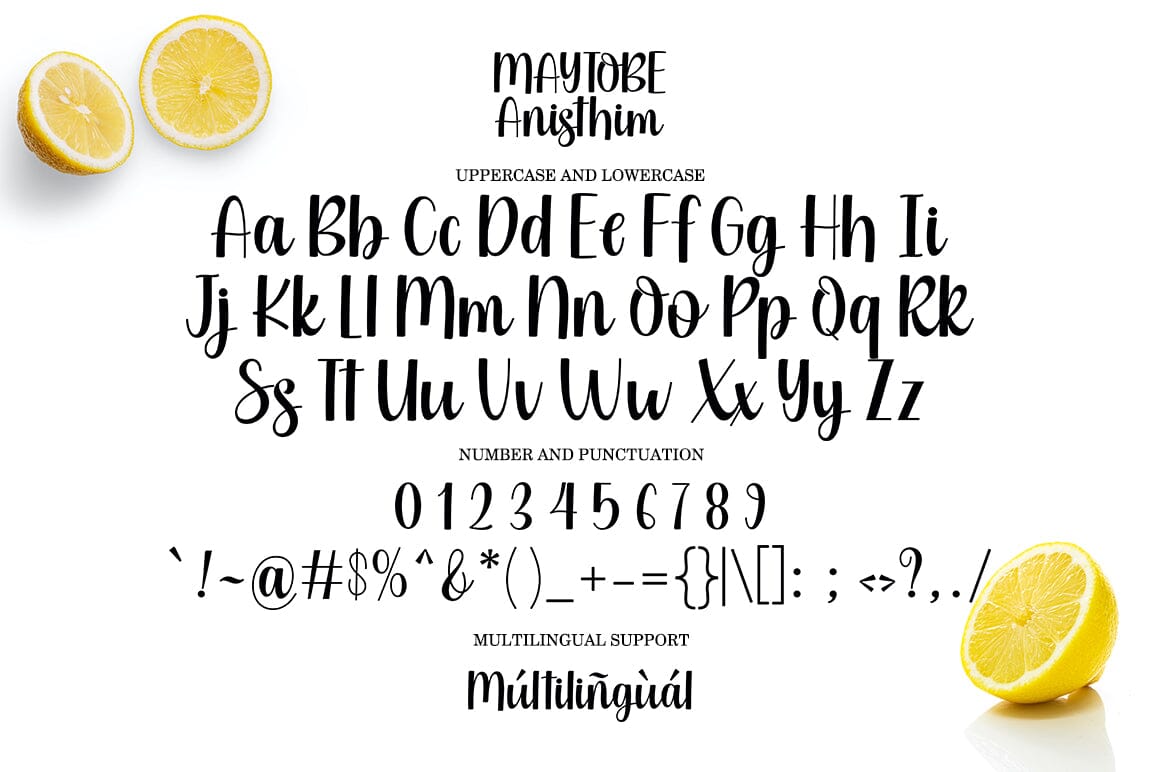
About Maytobe Anisthin
Maytobe Anisthin is the perfect typeface for all your types of projects, such as advertising, branding, graphic design, quotes, wedding designs, logos for online or offline businesses, photography, and more. Make your business more beautiful!